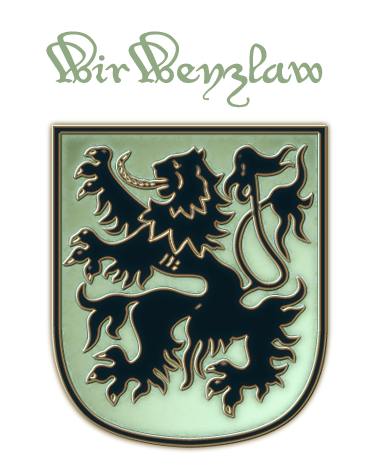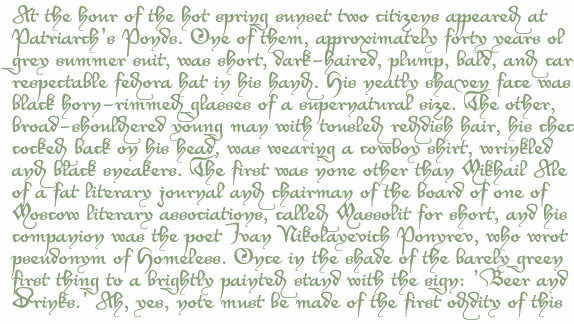
This is a genuine Bastarda, written at Prague in the year 1400, at the chancery of one Wenzlaw who was king of Bohemia and Roman king. His elixir of life was booze, his first occupation fighting off a brother who tried and retried to have him dethroned for insanity, his favourite pastime having people drowned in the Moldava, and his only claim at immortality causing thereby the death of a court clerk called John of Pomuk, who afterwards became renowned as a saint. However, it surely wasn't Saint John Nepomuk who wrote the quite innocuous little document this font is based on. The font is called after the first two words of that document, saying I got my information on King Wenzlaw, a.k.a Václav, a.k.a Wenceslas, a.k.a Wenzel, from Radio Prague's online Czech history, which was a rather amusing read. Was, indeed, for, it seems, those pages are gone now. I had to remove the link. What a pity. There is no number sign in this font. In its place, you'll find a long s. Equally, you'll find an alternate d on the bar sign; and the right and left bracket keys contain a double p and an alternate v. Update 2007 has provided a 'normal' n on the underscore, and the long s sign in this font will show up as a double long s. Update 2007 has, moreover, reduced the file size, by redesigning the composite glyphs, has tried to embellish the figures and the m, has corrected the Ldot/ldot, and has moved the brackets: the left one to the fi sign, the masculine ordinal indicator, and the 'less than or equal to' sign, the right one to the fl sign, the feminine ordinal indicator, and the 'greater than or equal to' sign. Update 2010 has redesigned all of the composite glyphs (correcting the dcaron, Lcaron/lcaron, and tcaron), and enlarged the dashes. |
Opening paragraph of the novel The Master And Margarita by Michail A. Bulgakov;